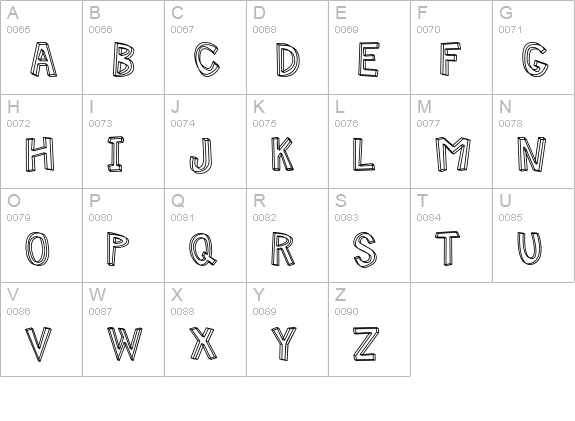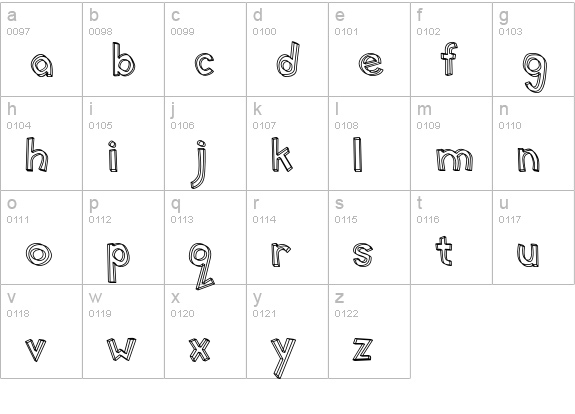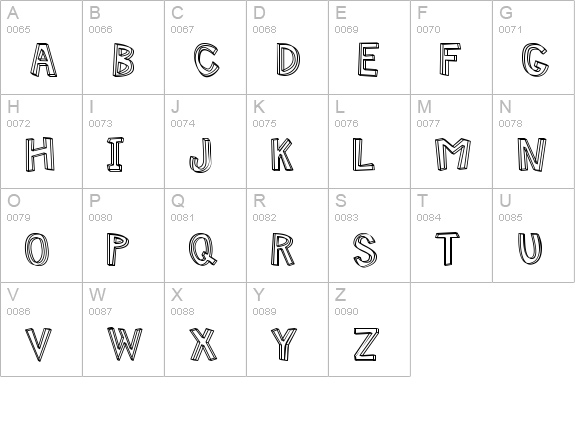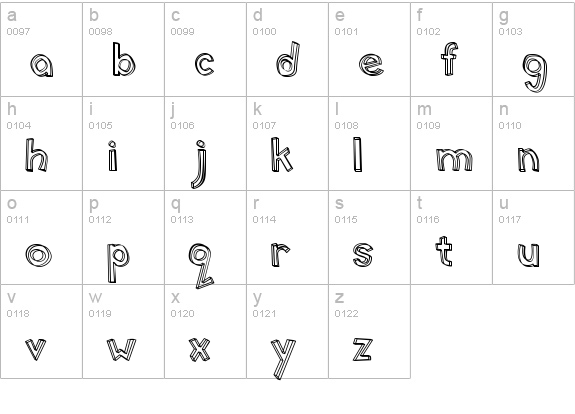
Mitten-Hollow Font Details
Mitten-Hollow font is a whimsical and playful typeface that exudes charm and character. With its unique hollow design and rounded edges, this font is perfect for adding a touch of warmth and friendliness to your projects. Whether you're designing greeting cards, posters, or branding materials, Mitten-Hollow will surely make your text stand out. This delightful font is not only visually appealing but also versatile and easy to read. Its clean lines and distinct style make it a great choice for both digital and print designs. And the best part? Mitten-Hollow is available for free download at FontsMarket.com, so you can start using it in your creations right away. Embrace the whimsy and creativity of Mitten-Hollow font and elevate your designs with its unique charm and personality. Download it now and add a touch of fun to your projects!